Searching for the ideal tattoo to reflect your individuality? Explore Gothic tattoos! These captivating designs boast a deep cultural heritage. They provide a distinctive avenue to display your personal style and convictions in 2025.
The world of tattoos offers endless design possibilities, but finding the perfect one is key. It should resonate with your personality and style. If you’re drawn to striking and dramatic visuals, consider exploring the realm of Gothic tattoos. They might be the ideal choice for you.
Gothic font tattoos are increasingly popular. These tattoos use bold, calligraphy-style lettering for a dramatic effect. They’re perfect for displaying significant words or numbers. Add an artistic and personal touch to your body with this unique style.
Intrigued by the allure of Gothic tattoos? You’re in the perfect spot! We’ve curated a list of ten exceptional Gothic tattoo fonts to ignite your creativity for your next ink.
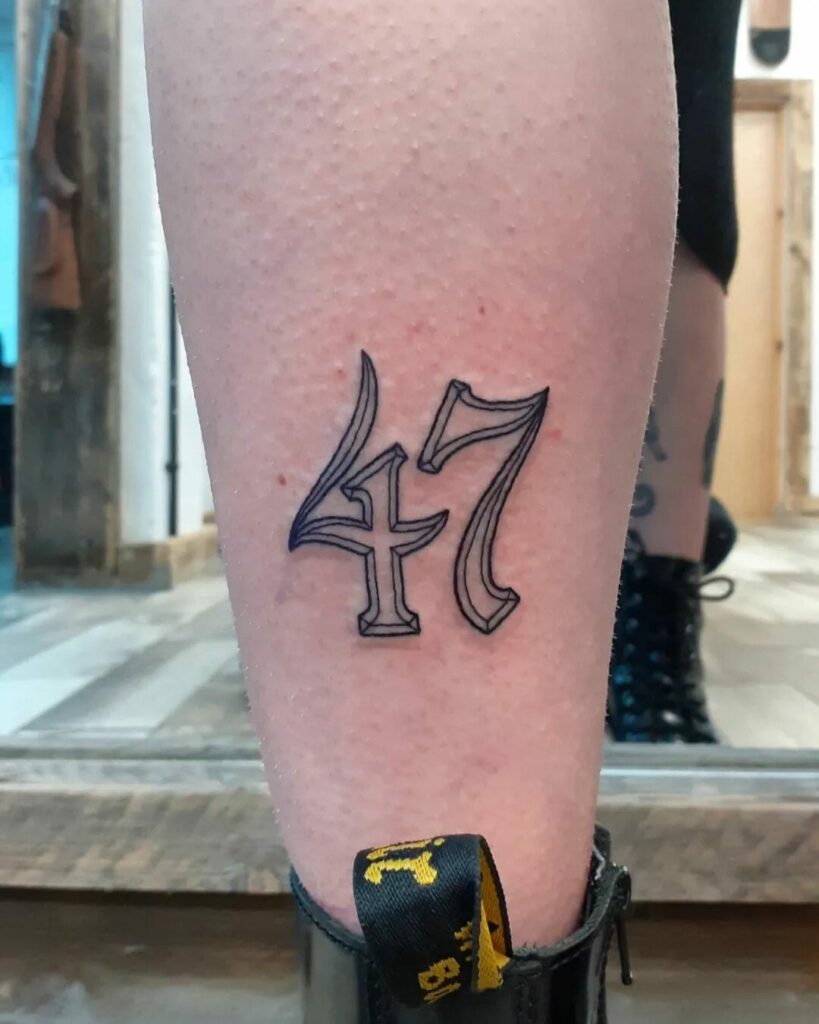
Year Tattoo With Gothic Numbers
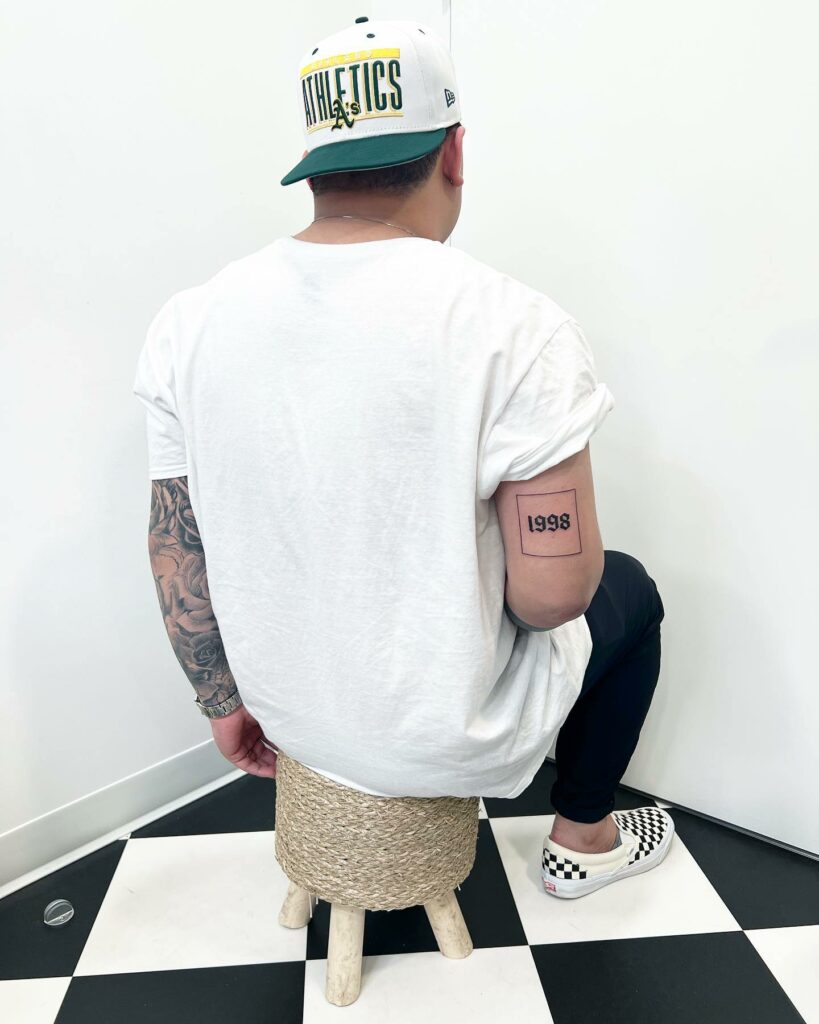
This design showcases stunningly detailed Gothic numerals, injecting elegance and refinement into the tattoo. The artist masterfully employs calligraphy, enhancing the piece’s overall Gothic feel. Perfect for marking a significant event or simply desiring a beautiful tattoo with historical flair, a Gothic year tattoo is a superb selection.
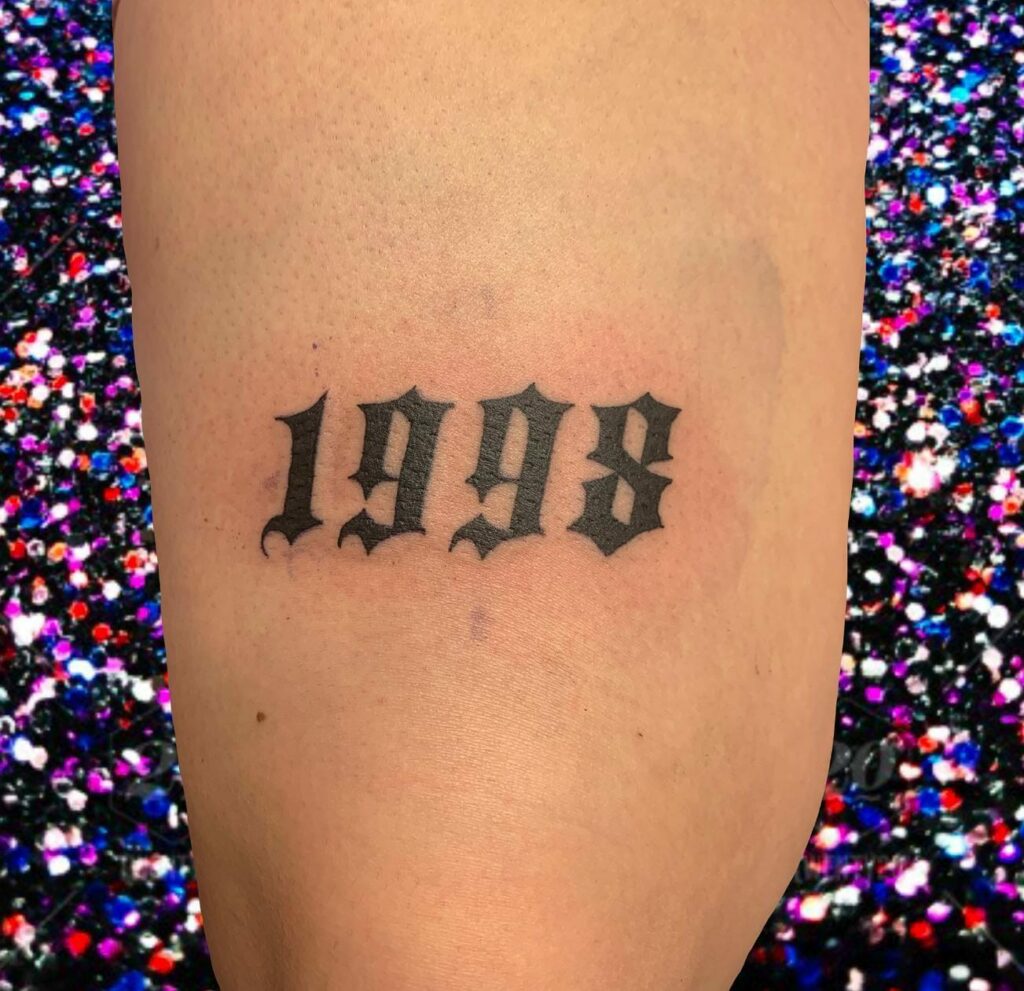
Seeking a distinctive and deeply personal tattoo? Explore year tattoos featuring Gothic numerals. This adaptable design works well for all genders. It can mark key moments like your birth, wedding, or the passing of someone dear. This specific design showcases calligraphic artistry, lending a unique Gothic feel. The numbers become a striking visual element, perfect for those wanting to showcase their unique identity.
Arm Gothic Tattoo Lettering
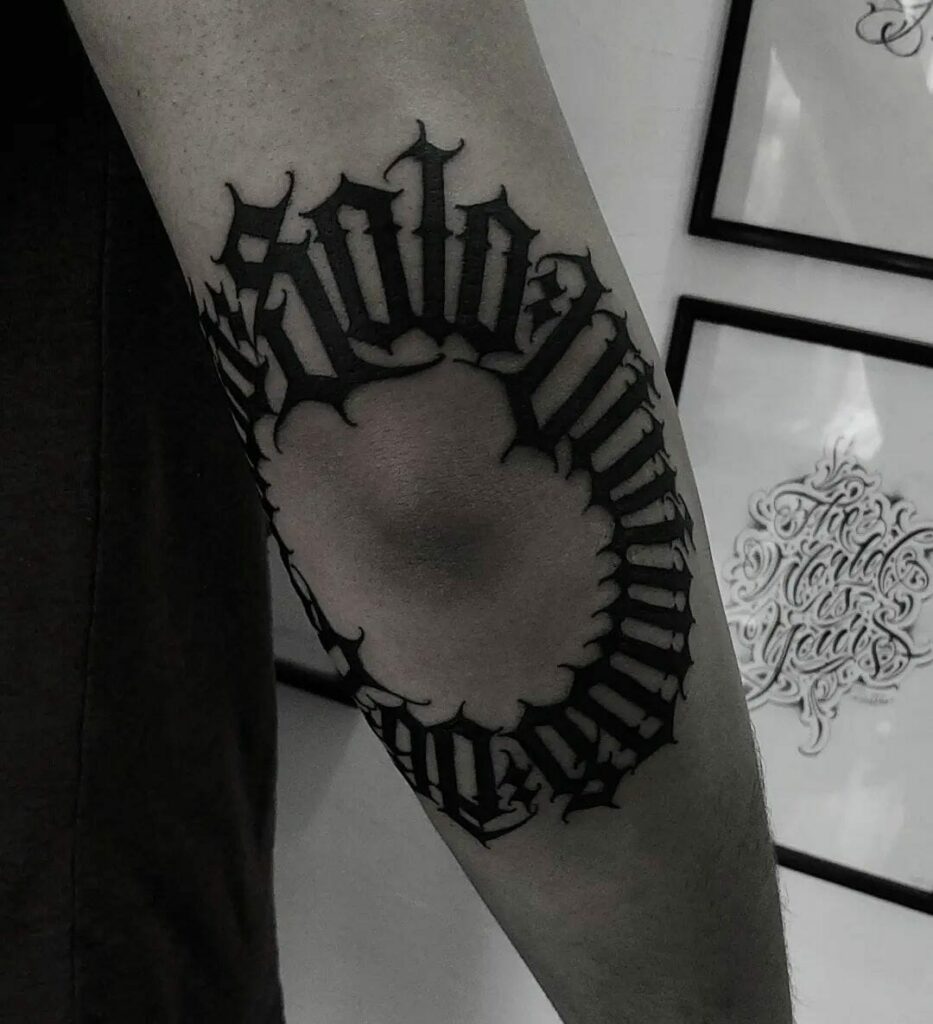
Circular tattoos offer a distinctive and captivating aesthetic, standing out from more conventional designs. If you’re seeking a novel tattoo concept, a circular motif could be an excellent choice. The elbow is a favored location for this design, allowing the artist to craft a tattoo that gracefully wraps around the joint. To enhance the tattoo’s visual appeal, consider incorporating numbers or fonts, perhaps drawing inspiration from Gothic alphabet tattoo number font styles. This addition will lend your tattoo a refined touch and ensure it commands attention.
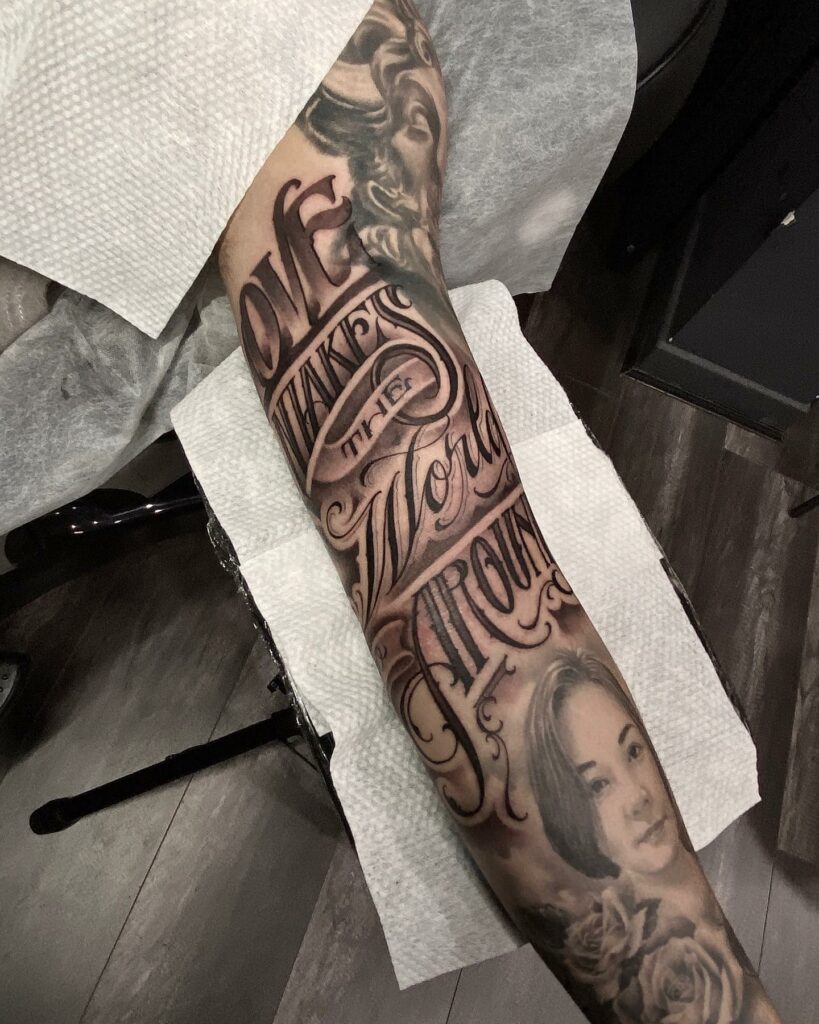
Looking for the ideal script font for your next tattoo? Your search ends here! Behold this breathtaking tattoo featuring Gothic fonts and lettering. The artist skillfully blended script fonts, creating a truly unique design. This impressive tattoo spans a significant area of the arm, making it a captivating work of art. With a wide array of free fonts available in 2025, you can easily personalize your own Gothic tattoo font to reflect your individual style.
Gothic Tattoo Number Fonts On Hand
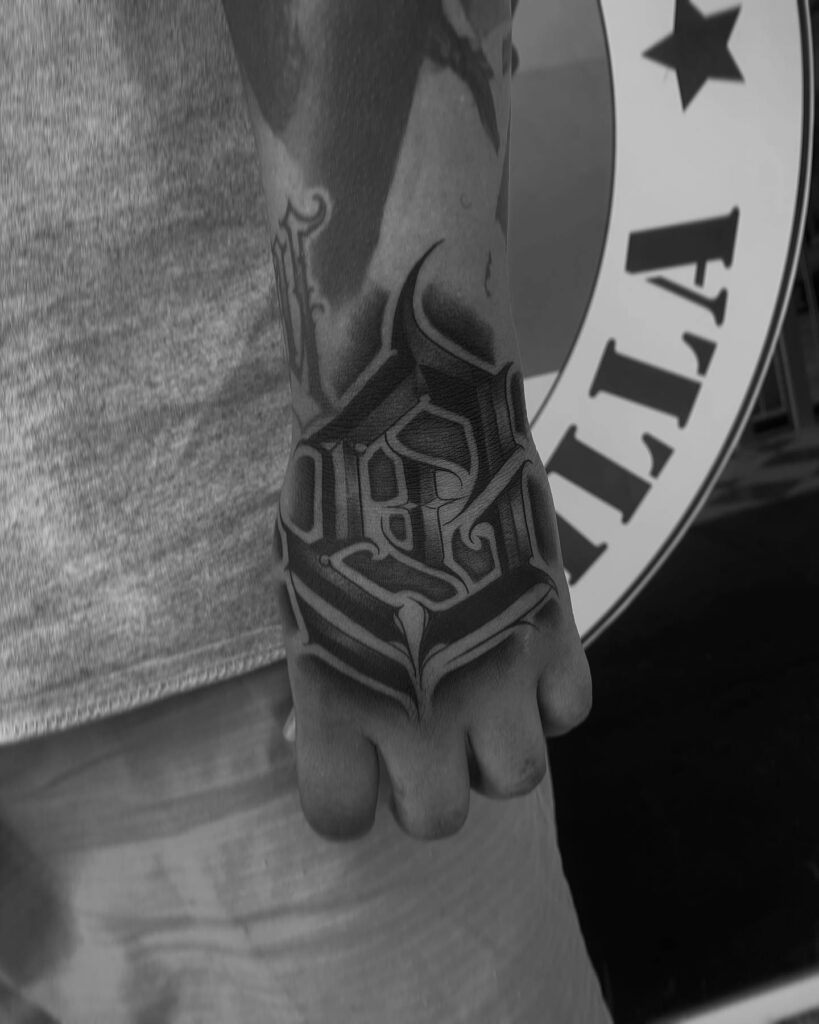
This design showcases timeless Gothic fonts, enhanced with strategic punctuation for visual impact. The tattoo artist’s skillful shading and technique perfectly capture the sought-after Gothic aesthetic. If you desire a distinctive and fashionable approach to integrating numbers into your next tattoo, this Gothic font design could be your ideal choice!
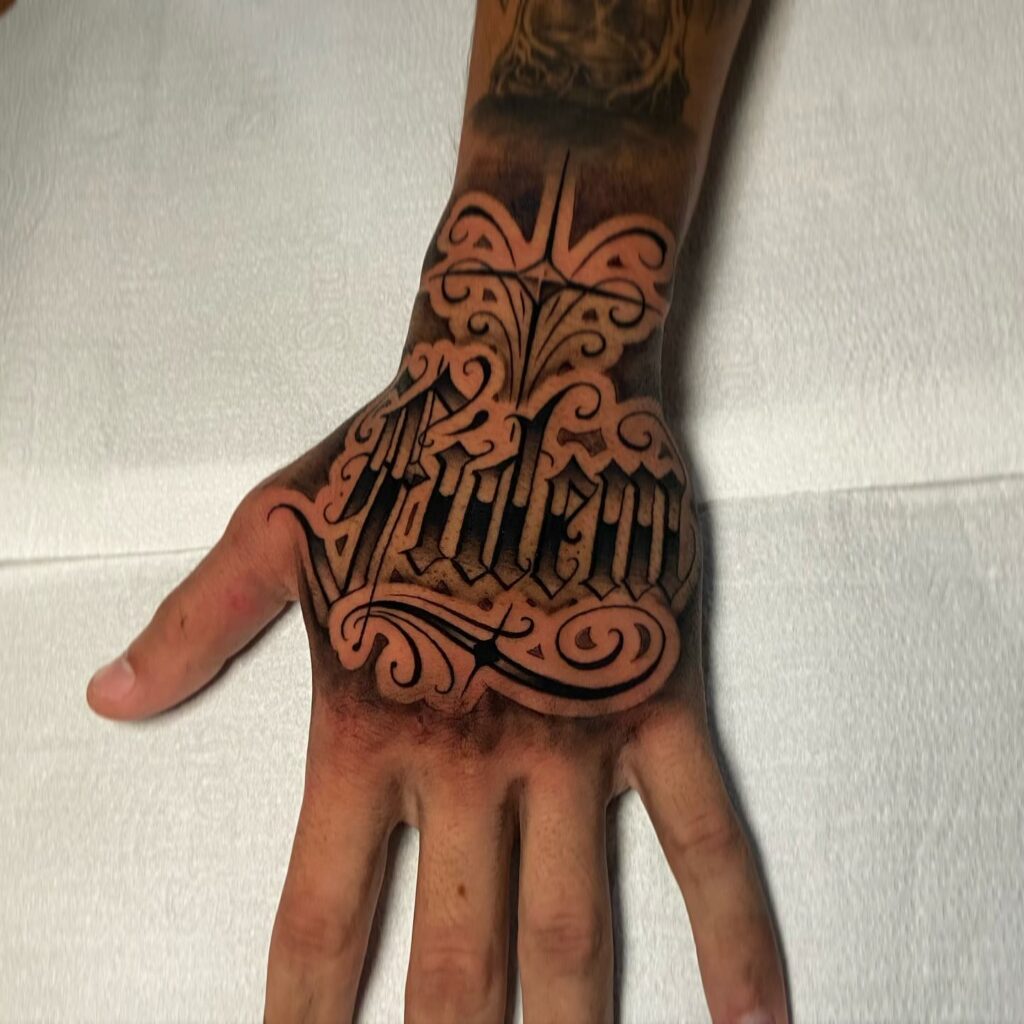
Want a tattoo that’s both meaningful and understated? Consider this Gothic number design. It’s ideal for those who appreciate simplicity with a powerful message. The artist skillfully used black and grey ink, shading the numbers to create a beautiful calligraphic style. Whether you want to mark a birth year or a significant date, this tattoo is guaranteed to make a statement.
Gothic Numbers on Chest
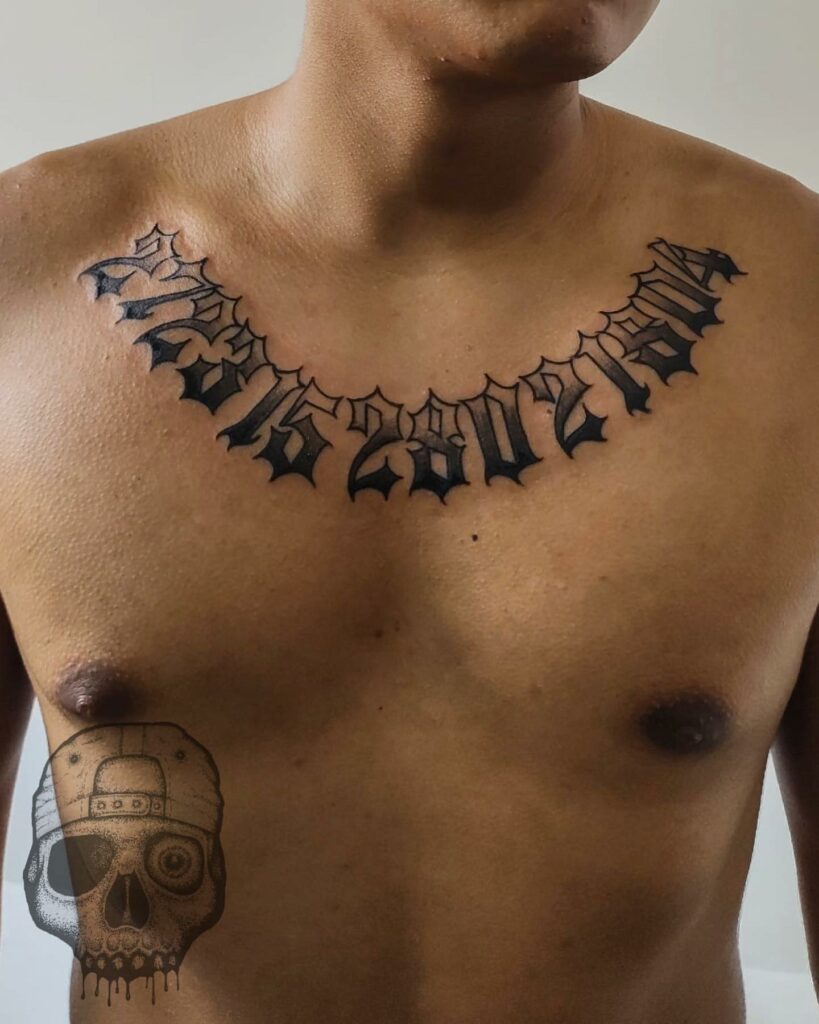
Do you love the look of Gothic numerals and want a unique tattoo font? We offer a fantastic tattoo lettering design with free fonts tailored just for you. This tattoo showcases Gothic numbers beautifully inked across one side of the chest. Gothic tattoo number fonts give your tattoo a special style and can be easily changed to match what you want.
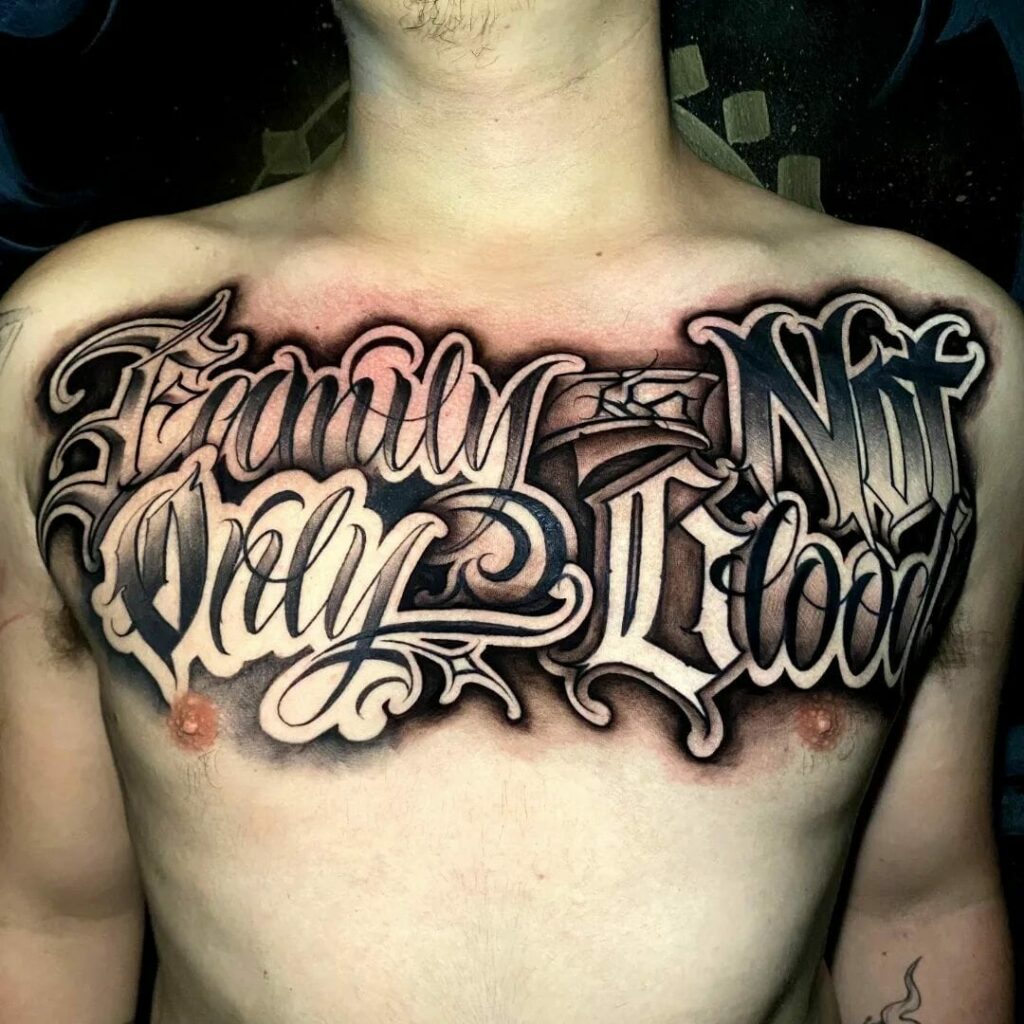
Seeking a powerful and eye-catching tattoo? Explore this impressive Gothic lettering chest piece. It masterfully combines diverse fonts and symbols into a unique artistic expression. The artist’s skillful shading, enhanced with subtle pink accents, elevates the design. Ideal for those desiring a personalized and unforgettable tattoo that commands attention.
Shoulder Tattoo in Gothic Fonts
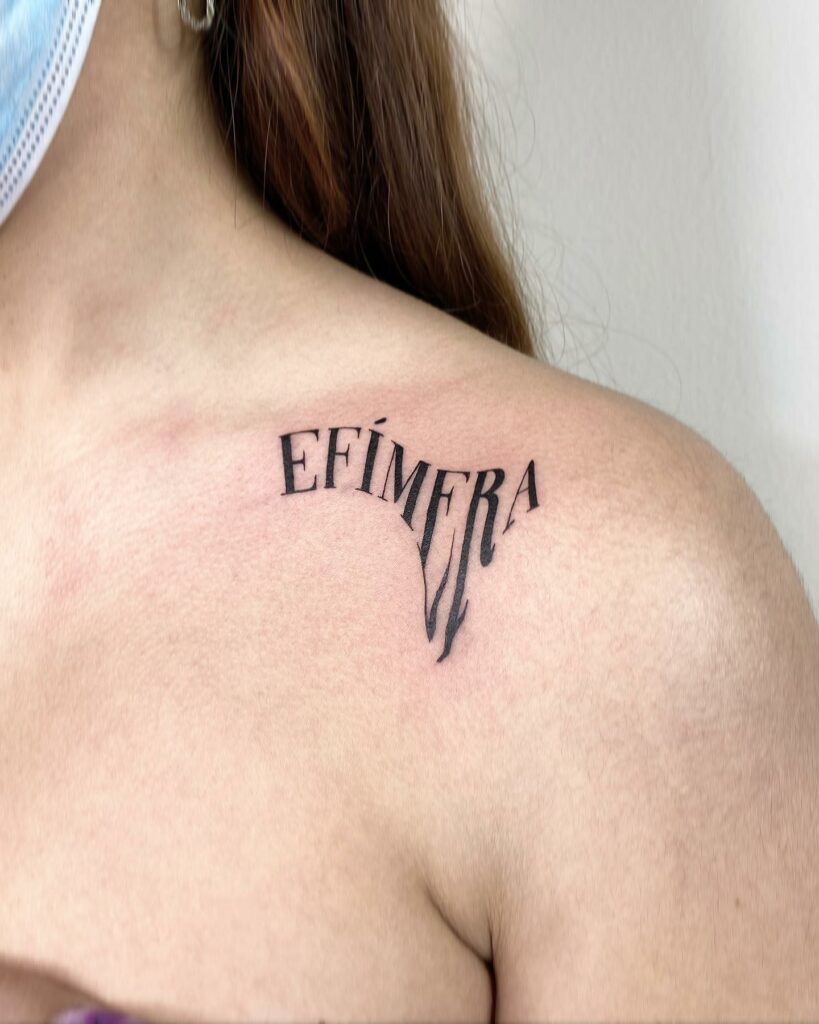
Searching for the ideal Gothic tattoo? Explore numerous blog posts for inspiration. These posts showcase striking designs and explain their historical significance. This enhances your understanding of the art. Consider this shoulder tattoo. “EFIMERA” is written in a traditional Gothic font. It features detailed linework and skillful shading. The word carries a profound message. It symbolizes the fleeting nature of life and its temporary existence.
Behold this captivating shoulder tattoo showcasing Gothic script lettering! The elaborate design, crafted with freely available fonts, is truly mesmerizing. The Gothic style amplifies its inherent beauty. Remember, Gothic tattoos require ample space. The shoulder provides an ideal canvas for this artwork. Showcase this masterpiece by wearing sleeveless or off-shoulder attire. This will highlight the tattoo and enhance its appeal.
Simple Gothic Tattoo in Red Ink
Seeking a distinctive and eye-catching tattoo? This red Gothic number tattoo is an excellent choice. The bold contrast of the black outline against the red ink delivers a visually impressive result. For an even more impactful design, consider filling in the numbers to enhance their prominence. Unleash your creativity and personalize this Gothic number tattoo to reflect your unique style.